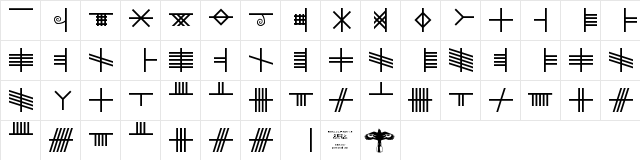
Beth-Luis-Fearn Regular
Design Context for Beth-Luis-Fearn Typeface
Beth-Luis-Fearn takes a measured approach to typography — its balanced proportions and neutral character make it a reliable workhorse for both digital and print work.